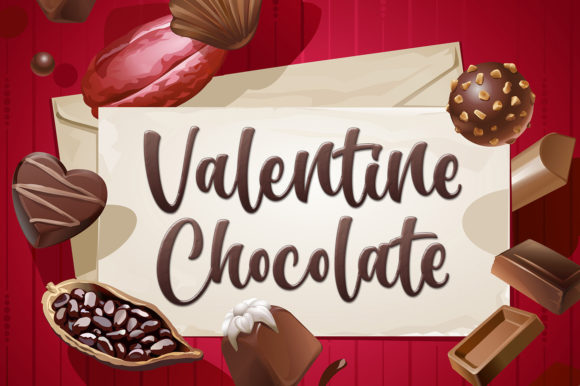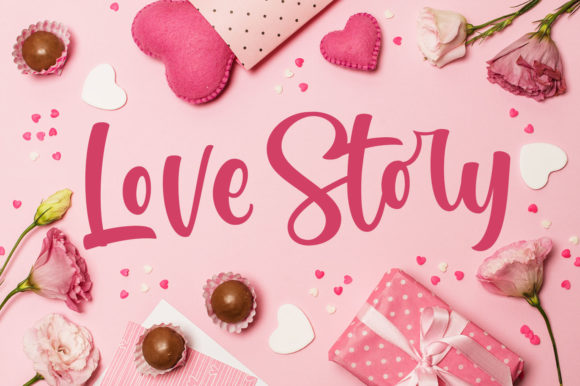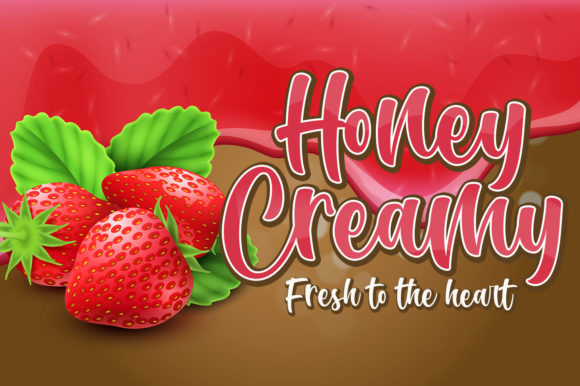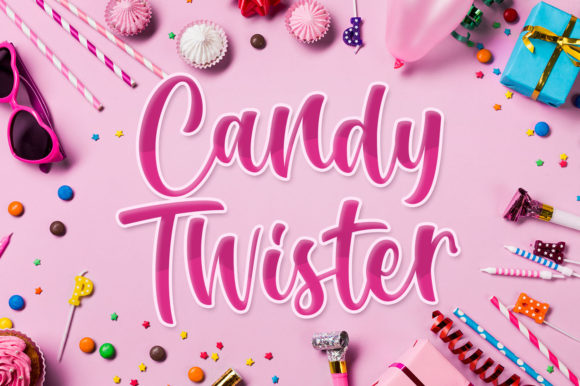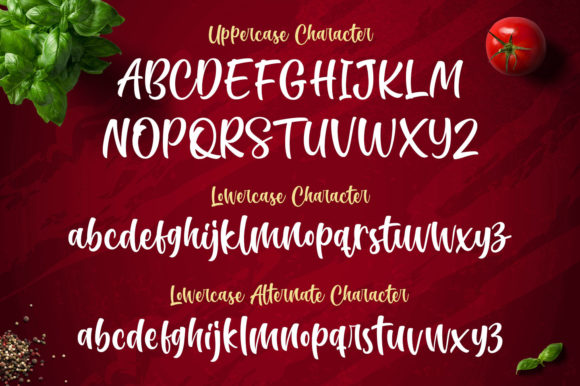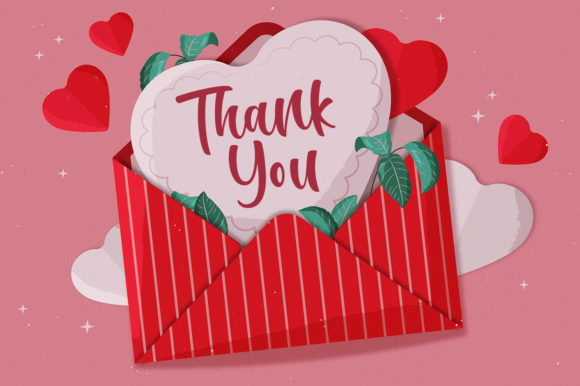
HomeScript FontsSugar Charm Font Script Fonts Sugar Charm Font FacebookXPinterestWhatsApp Sugar Charm Font Poster 2 Sugar Charm Font Poster 3 Sugar Charm Font Poster 4 Sugar Charm Font Poster 5 Sugar Charm Font Poster 6 Sugar Charm Font Poster 7 About Sugar Charm Font Sugar Charm is a quirky and sweet script with a romantic spark. Use it to add that personal touch to any craft! DOWNLOAD NOW People also explored Chimfly Font Rughetta Font Dripping Horror Font Master Bold Font Blacking Font Melissa Font Merlin Philpot Font Harvest Moon Font Fortune Cookies Font 325 0 TagsSugar Charm Font Previous articleSeaside Wave FontNext articleMy Kids Font LEAVE A REPLY Cancel reply Comment: Please enter your comment! Name:* Please enter your name here Email:* You have entered an incorrect email address! Please enter your email address here Website: Save my name, email, and website in this browser for the next time I comment. Personal Use Free Persephone Free Personal Use Free Read more about this font Shkoder 1989 Personal Use Free Read more about this font Bulky Personal Use Free Read more about this font Sushi Stroke Personal Use Free Read more about this font BLOG Free Fonts Risk: Why Free Fonts Can Be Dangerous for Designers Free Fonts Risk: Why Free Fonts Can Be Dangerous for Designers Using free fonts is a common practice in web and graphic design. However, the... Free vs Paid Fonts: Why Investing in Premium Fonts Is Worth It To increase your work productivity, choose the most readable fonts. How to Cut Any Font on Cricut: Convert a Font to SVG (Free)